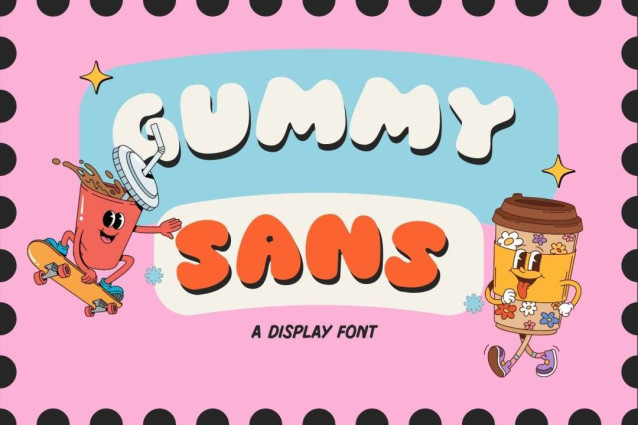
Gummy Sans Font
Gummy Sans Font is a playful, bubbly display font that radiates charm and sweetness. Featuring soft, rounded letterforms and a chunky silhouette, this typeface captures a fun, cartoon-inspired personality that instantly grabs attention. Its smooth curves and friendly proportions make it perfect for children’s designs, snack packaging, playful branding, posters, and social media graphics.
Designed to feel lighthearted and cheerful, Gummy Sans brings warmth and approachability to any project. The bold, puffy shapes create a soft visual impact while maintaining excellent readability at larger sizes. Whether you’re working on candy-themed artwork, cute illustrations, or vibrant promotional materials, Gummy Sans adds a delightful and energetic touch that makes your design pop.